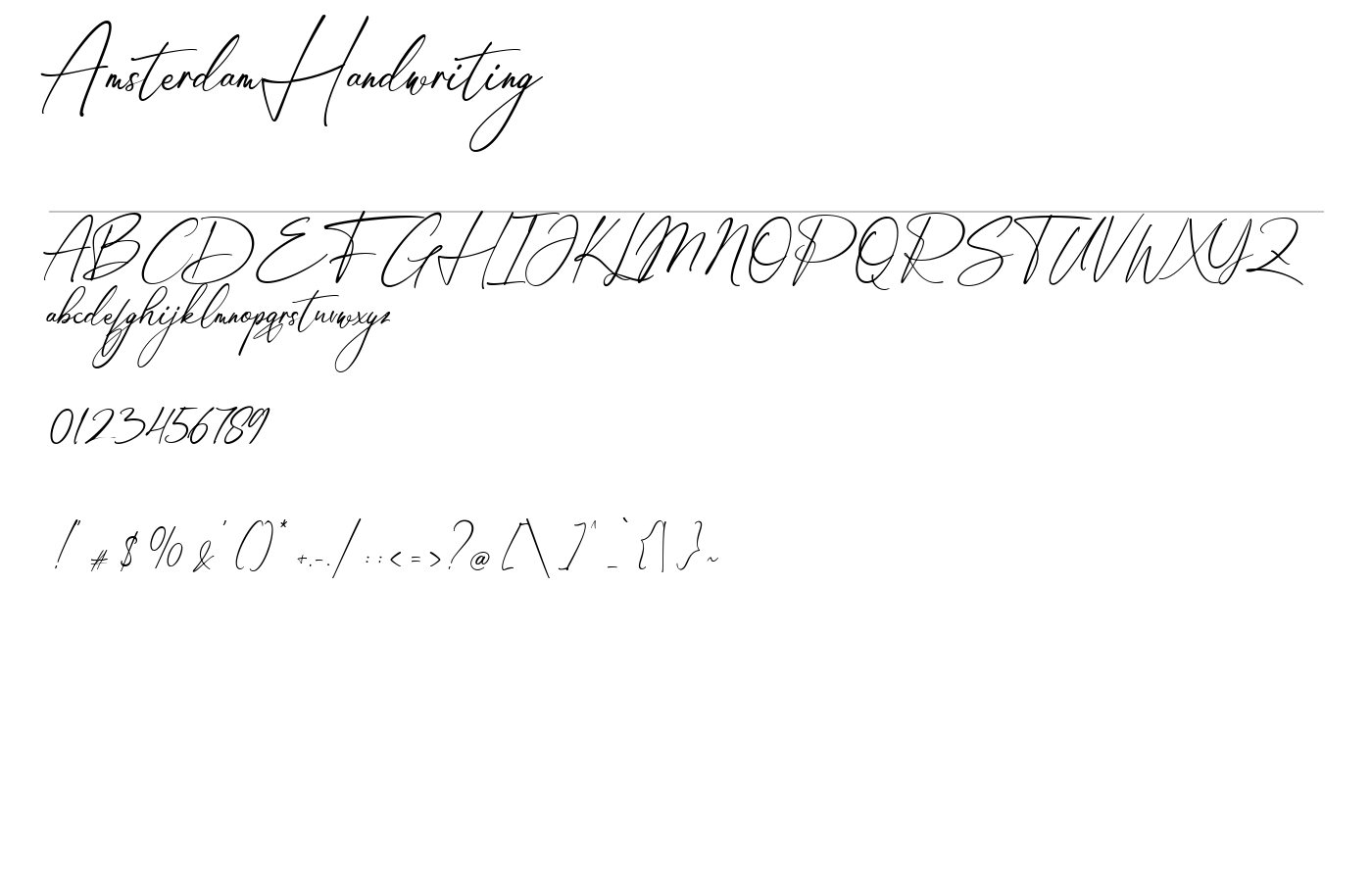
Amsterdam Handwriting is a delicate and elegant script font that mimics natural, flowing handwriting with thin, graceful strokes and high contrast. Its tall, airy letterforms and smooth curves create a sophisticated yet personal feel, making it perfect for invitations, branding, and stylish editorial projects where a refined, approachable touch is desired. This font works best in headlines or decorative uses where its fine details can shine without sacrificing readability.
Amsterdam Handwriting Font
About Amsterdam Handwriting Font
| Font family | Amsterdam Handwriting Font |
| Designer | Rizky Alemayo |